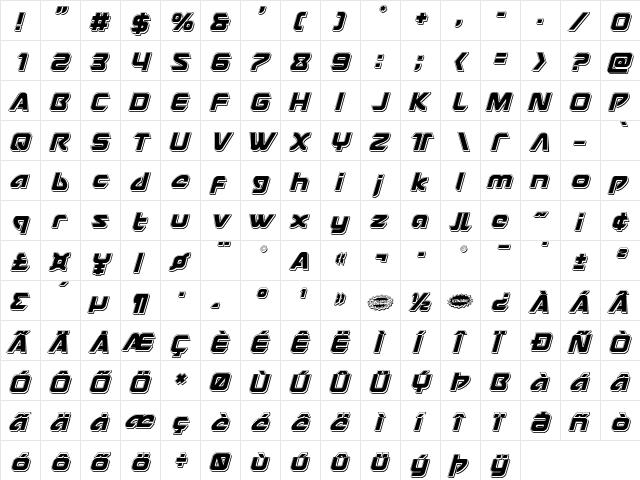
USAngel Punch Italic Italic
Design Context for USAngel Punch Italic Typeface
USAngel Punch Italic is a composed and adaptable typeface that performs quietly and consistently across a wide range of design contexts. The dynamic lean of this cut emphasises speed and emphasis in any layout.
Pro Tip: Use USAngel Punch Italic for emphasis, pull quotes, and subheadings where its slanted energy can add rhythm to the layout.